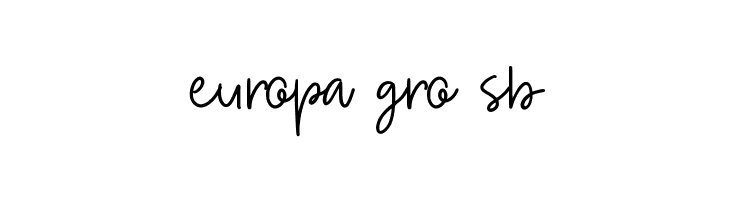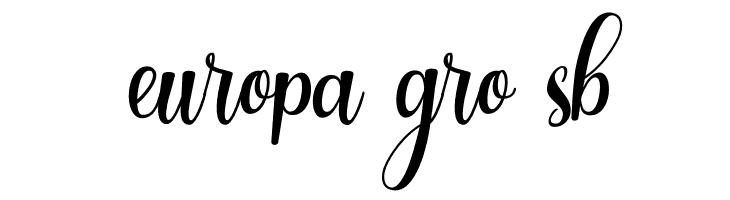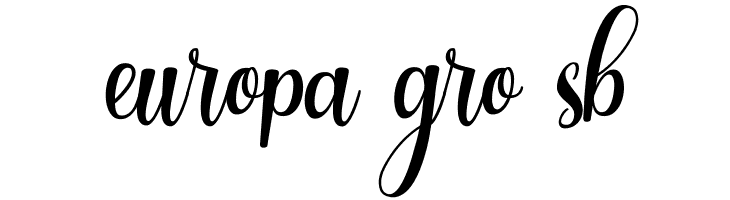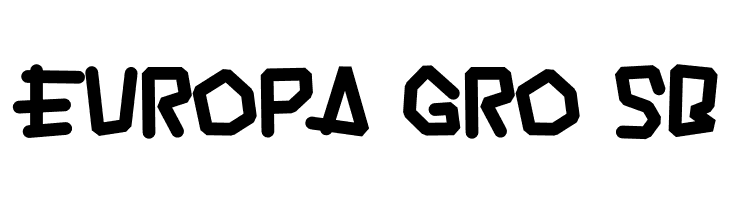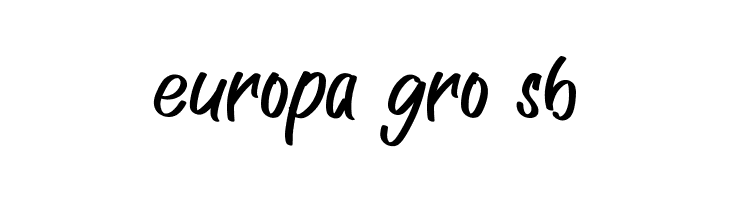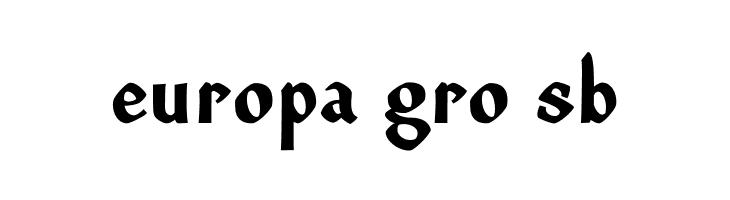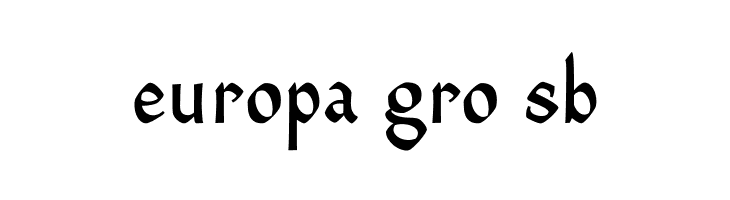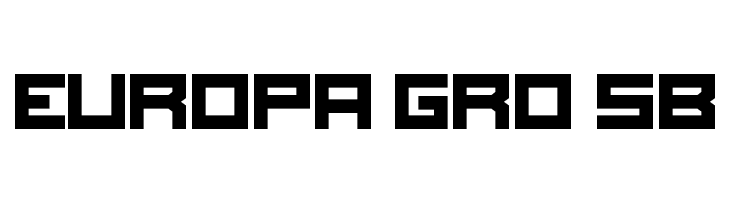
A bold, geometric stencil font with industrial appeal.
A bold, hand-drawn font with a tape-cut appearance and playful style.
A clean, geometric sans-serif typeface with excellent legibility.
A casual, handwritten font with playful loops and a personal touch.
A bold, modern font with clean lines and geometric structure.
A sophisticated serif font with sharp serifs and a blend of classic and modern elements.
A bold, dynamic serif typeface with angular serifs and strong presence.
A flowing, cursive script font with elegant, interconnected strokes.
A graceful script font with elegant, flowing lines and a handwritten style.